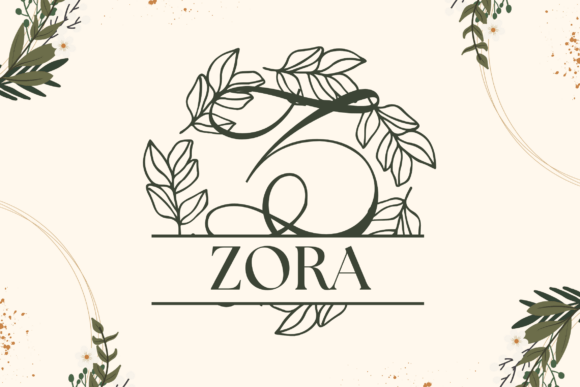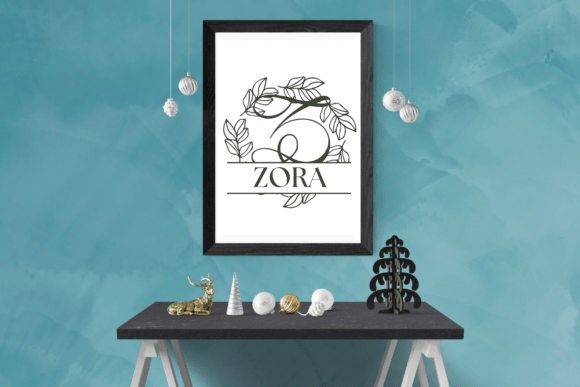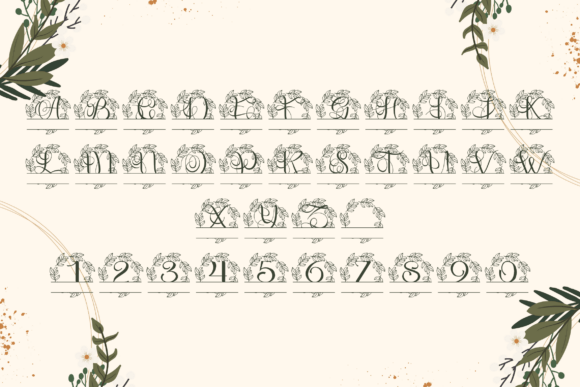
Introduction to Laurisia Split Monogram Font
Enter the Laurisia Split Monogram Font, a stunning free download that’s sure to elevate your designs to the next level. This high-quality font is designed to create beautiful, laurel-inspired emblems with a clean center split, making it perfect for adding a touch of elegance to your work.
Whether you’re a seasoned designer or just starting out, the Laurisia Split Monogram Font is a valuable resource that’s sure to become a go-to design element. With its smooth strokes and open counters, this font is versatile enough to work beautifully on a transparent background, from tiny tags to large signage.
Key Features of Laurisia Split Monogram Font
- Unique split monogram design ideal for creative projects and personalization
- High-quality design resource featuring intricate details and ornate patterns
- Perfect for customizing gifts, invitations, and other design elements
Honest Review: Laurisia Split Monogram Font
As a designer, I’m always on the lookout for high-quality fonts that can elevate my creative projects. I recently had the chance to work with the Laurisia Split Monogram Font, and I’m excited to share my thoughts on this design resource.
- High-quality vector graphics that are perfect for scaling up or down.
- Easy to customize with the ability to adjust the size and color of the monograms.
- Comes with a transparent background, making it a great addition to any design project.
⚠️ One limitation I noticed is that the font only includes a limited number of monogram combinations, which may not be suitable for large-scale designs or complex projects.
How to Use Laurisia Split Monogram Font
Designing with Laurisia Split Monogram Font
The Laurisia Split Monogram Font is a high-quality design resource perfect for creative projects that require a touch of elegance. With its unique split monogram style, it adds a personal and sophisticated touch to any design.
Getting the Most Out of Laurisia Split Monogram Font
To get the most out of the Laurisia Split Monogram Font, use it on a transparent background to create a subtle yet effective design element. Experiment with different font sizes and styles to add depth and interest to your project.
The Laurisia Split Monogram Font is perfect for:
- Personalized gifts and accessories